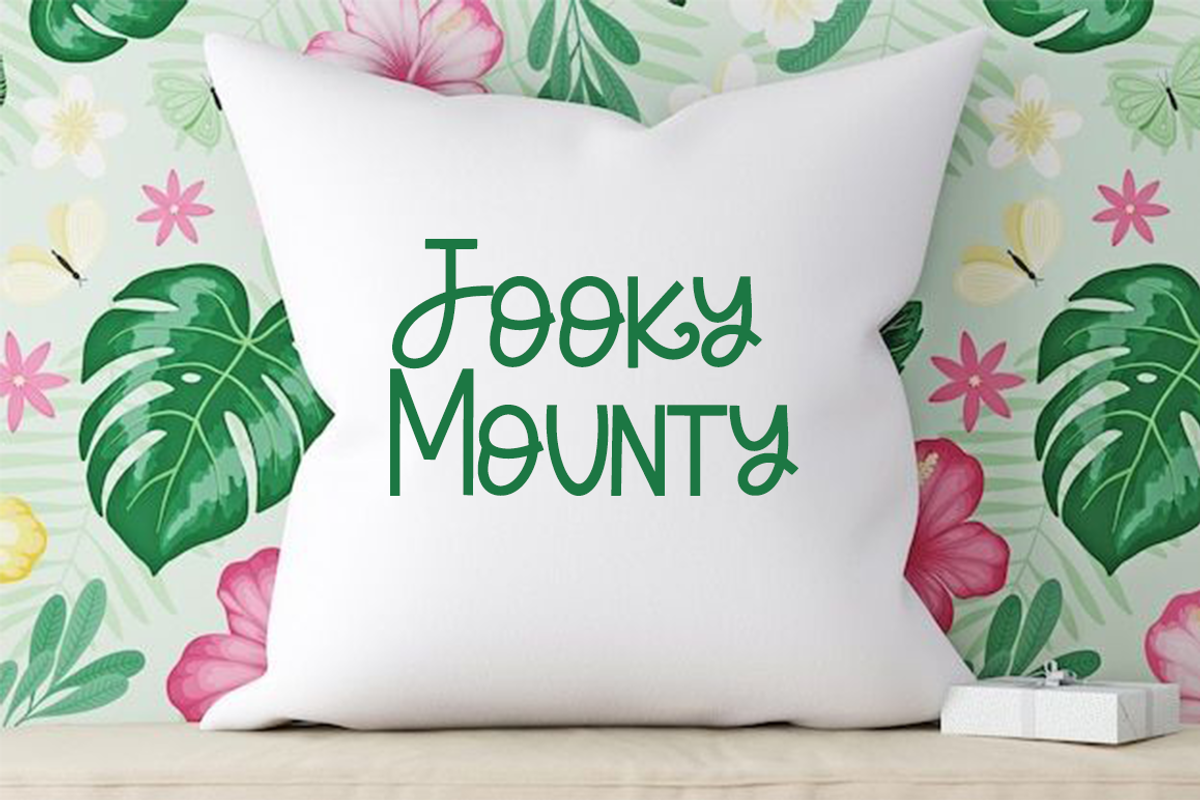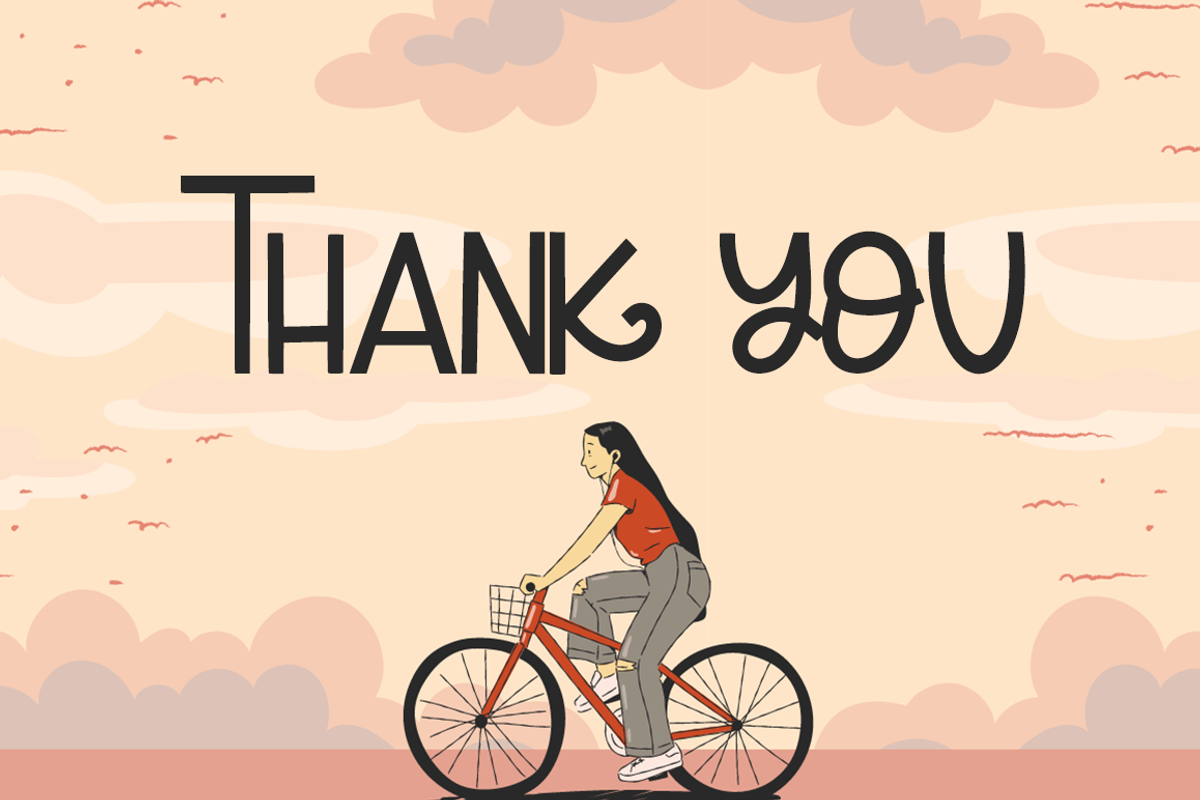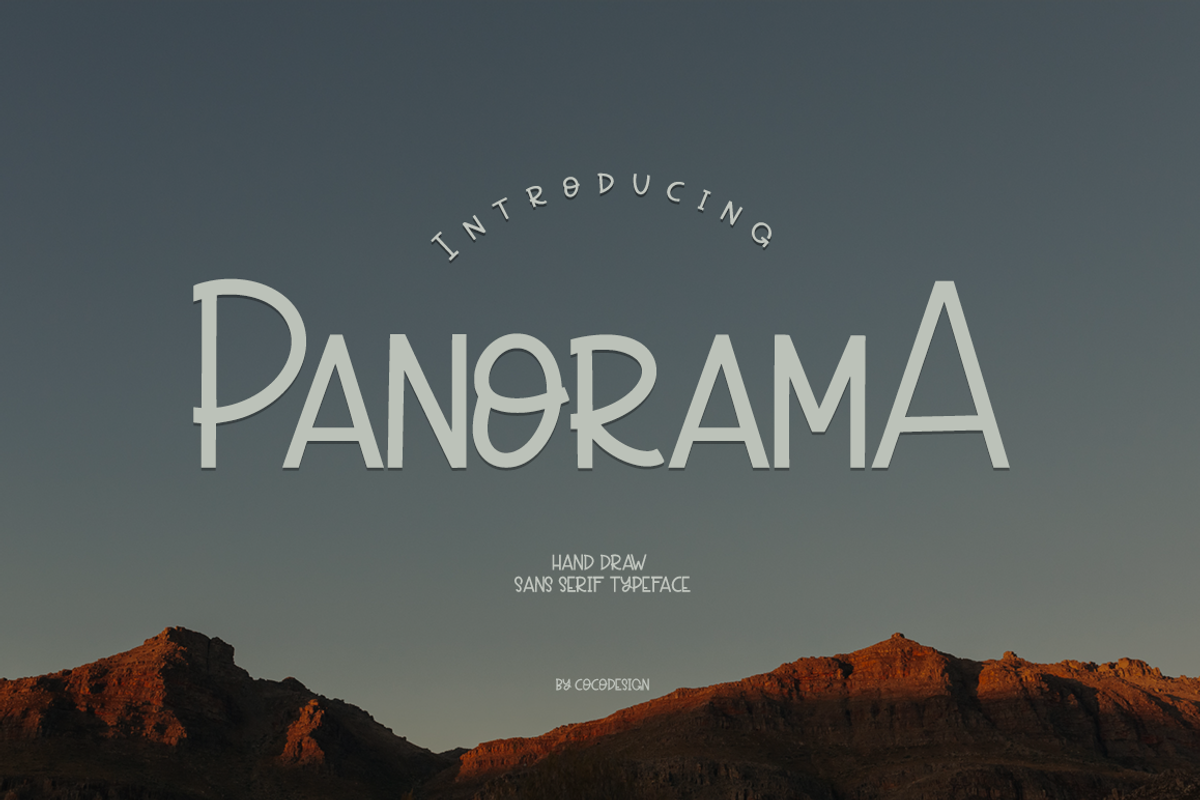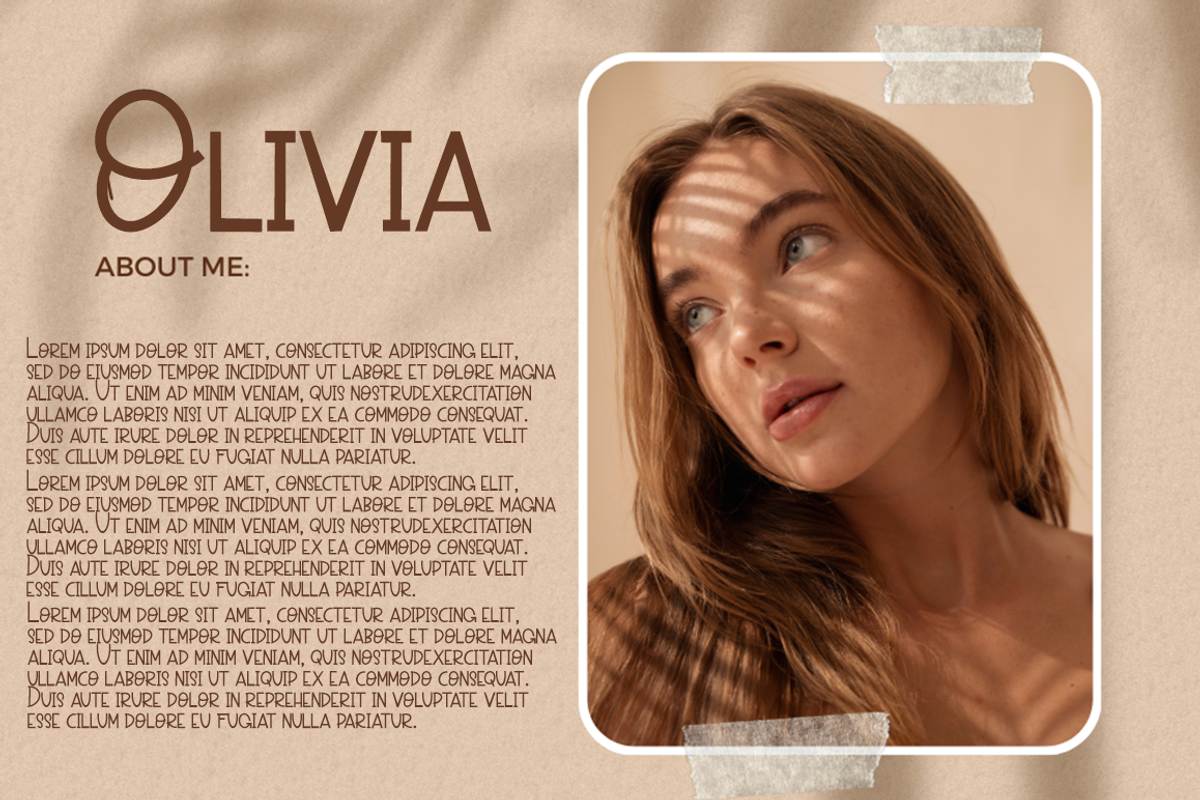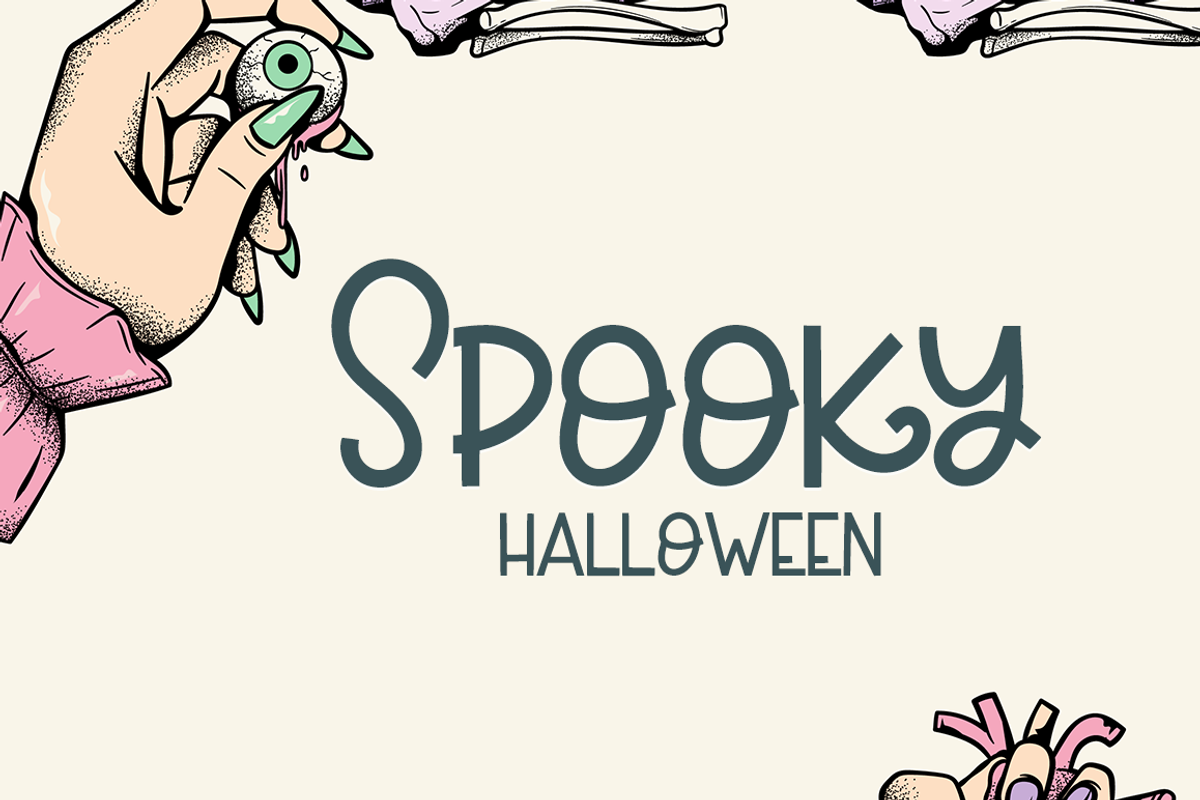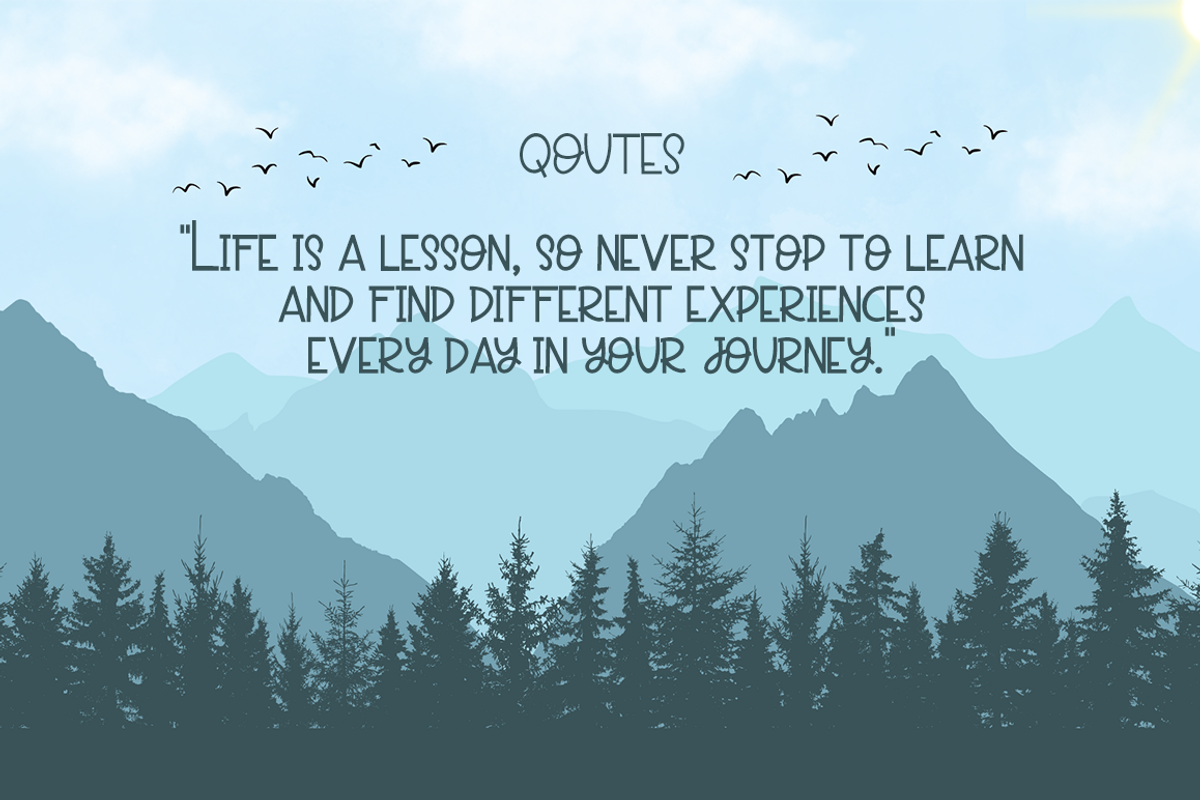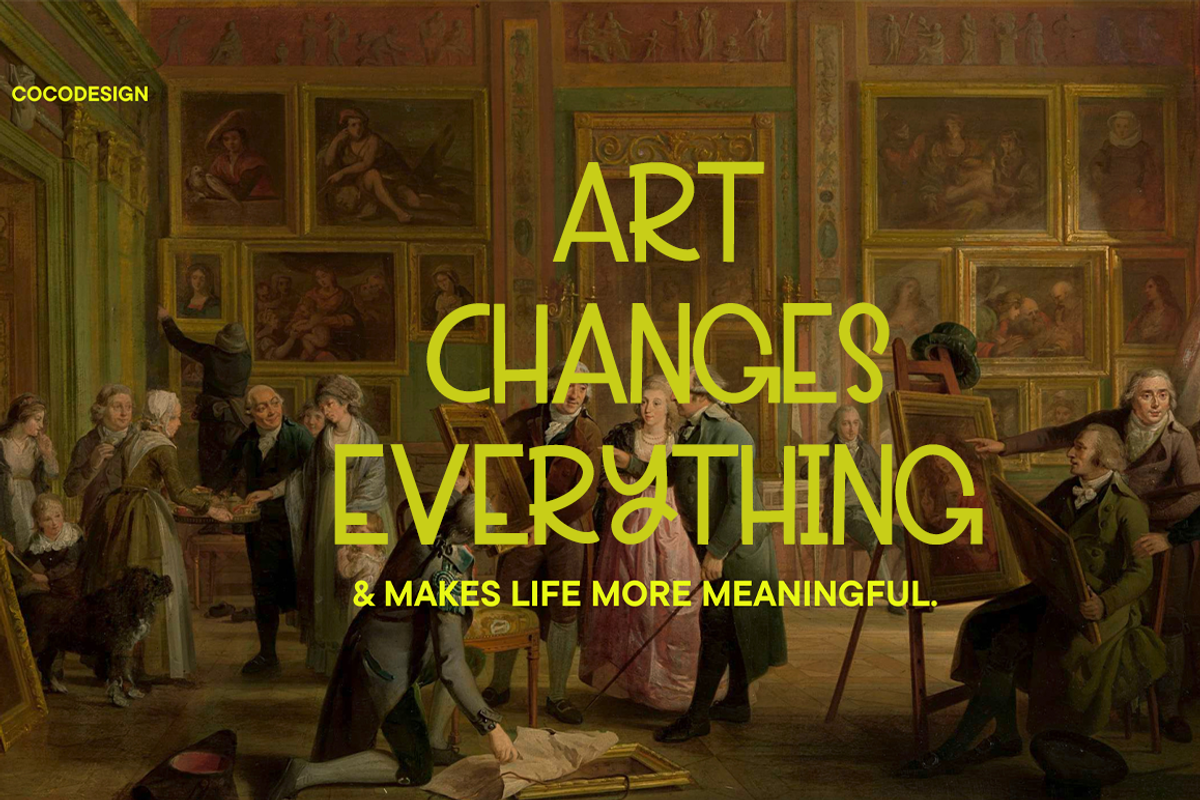
Panorama
Panorama is a sans handwriting design font, including Regular. This font is casual and beautiful with swash. Can be used for various purposes. such as logos, product packaging, wedding invitations, branding, headlines, signage, labels, signatures, book covers, posters, quotes, and more.